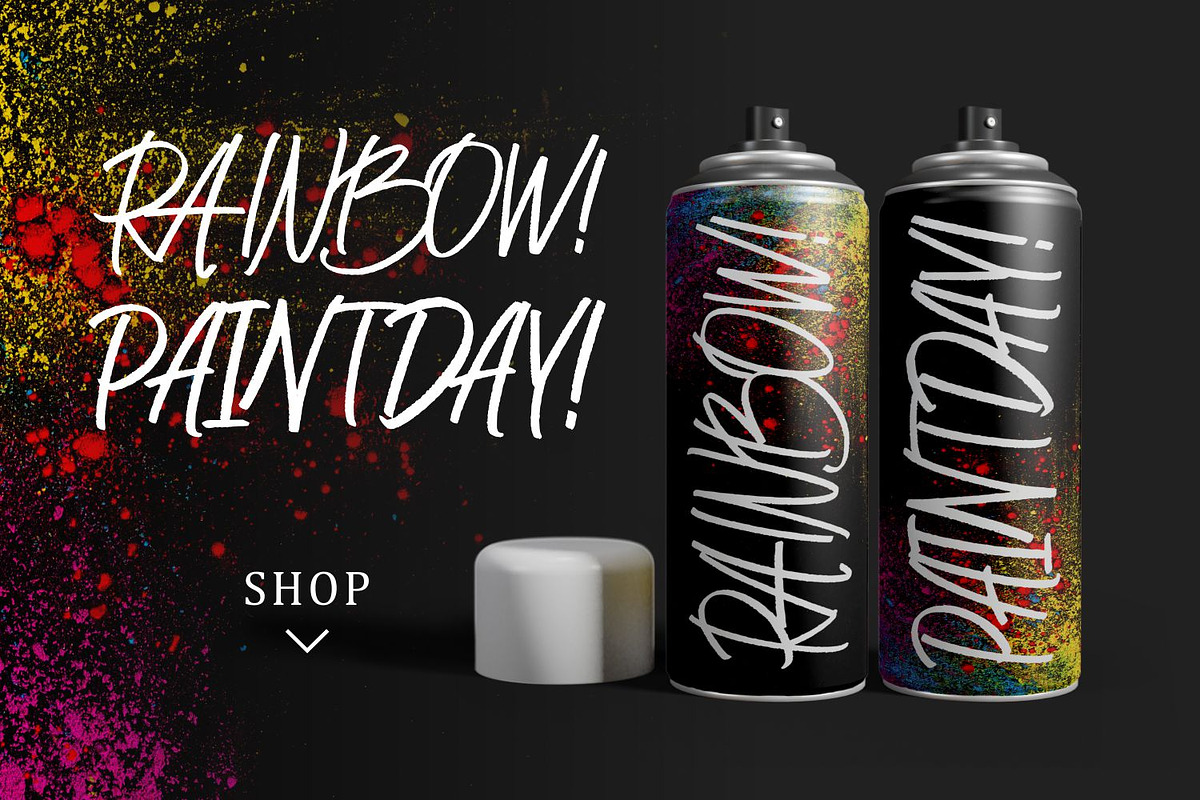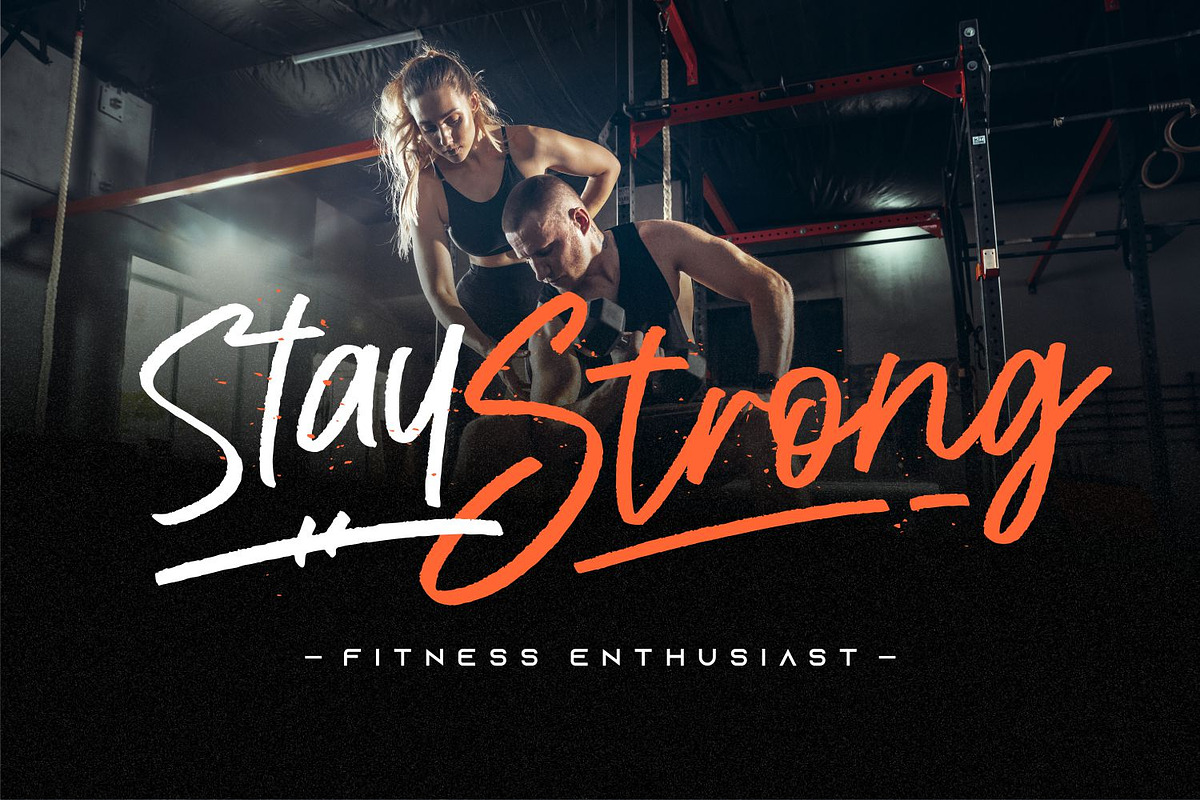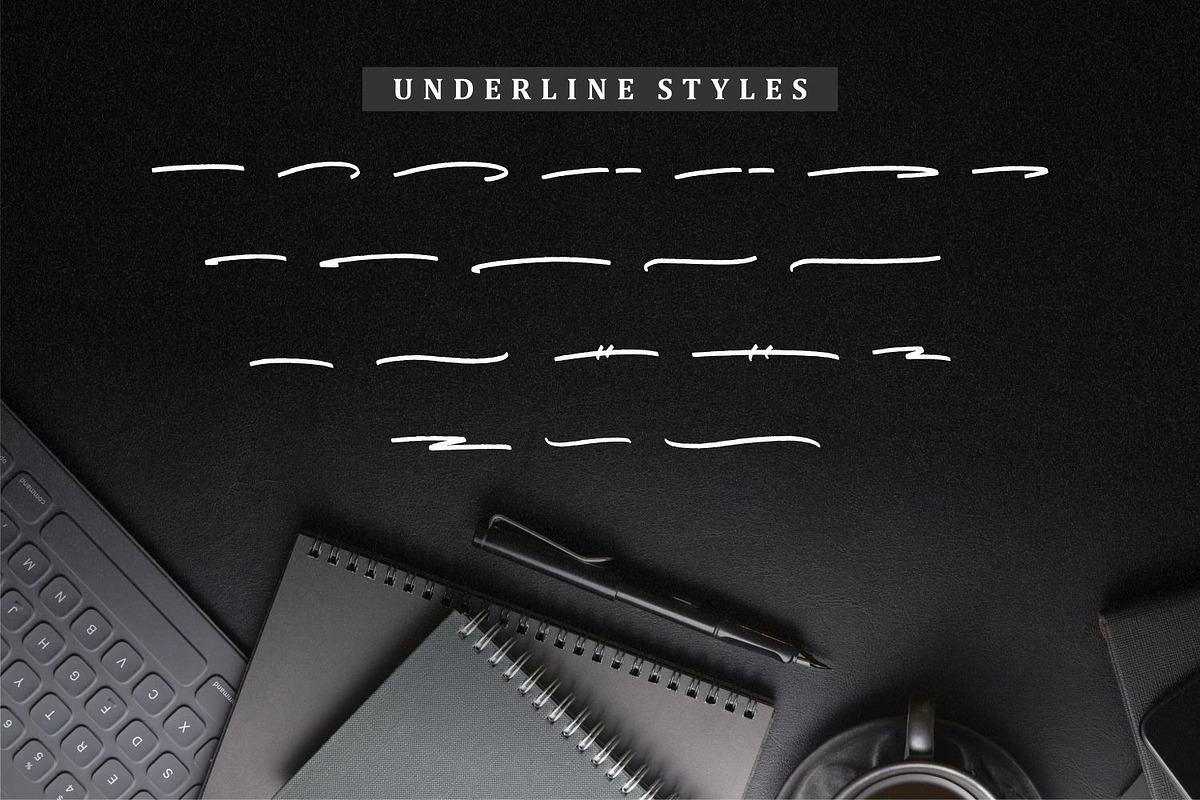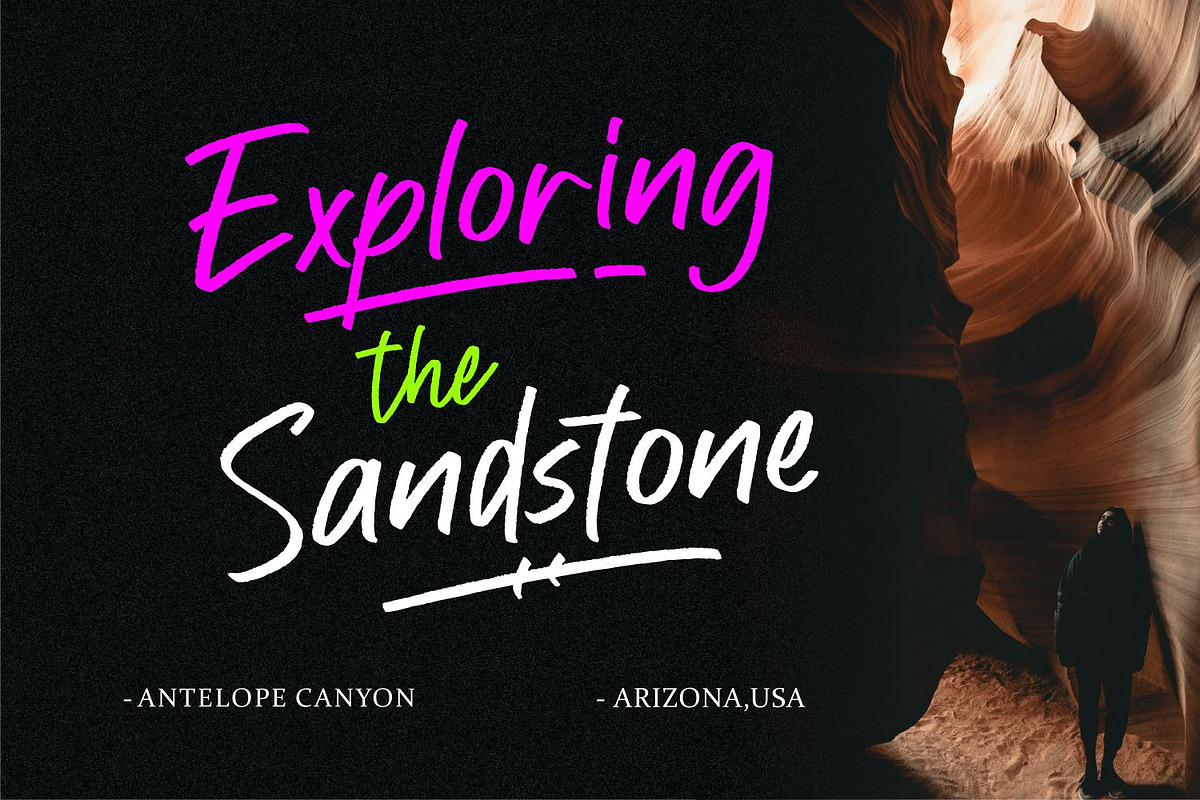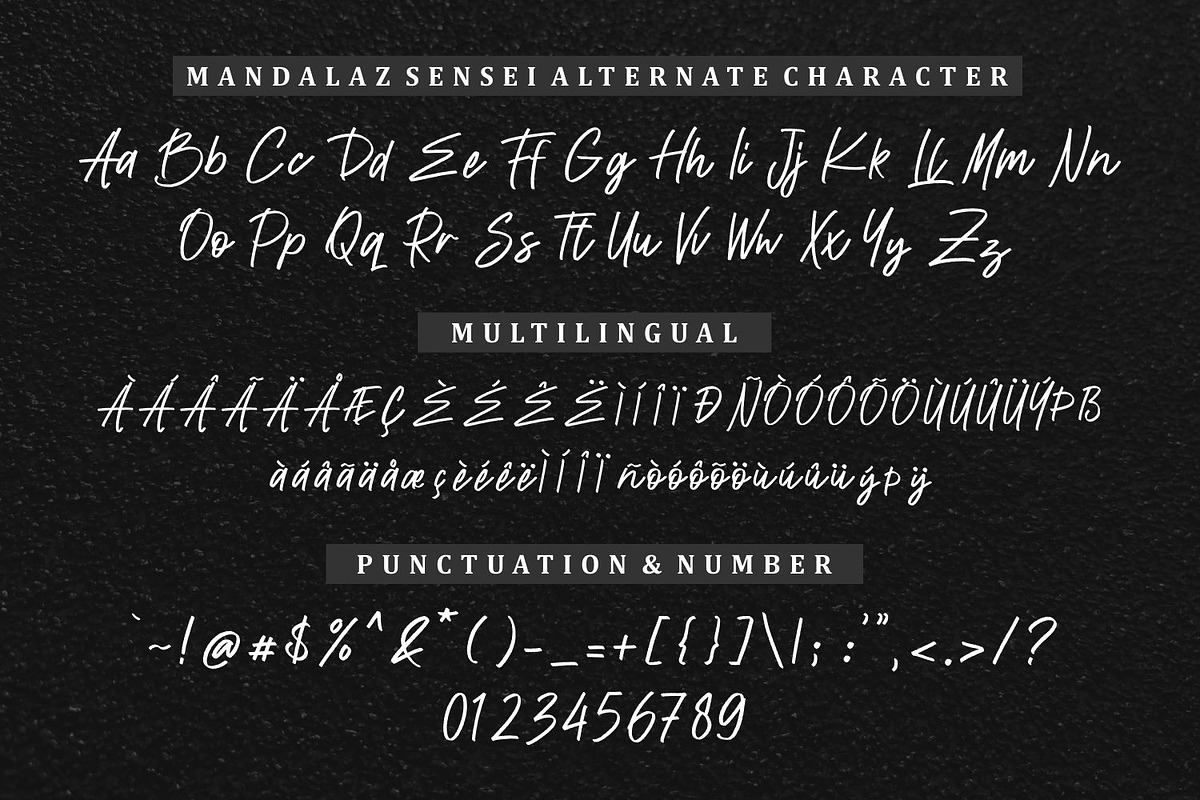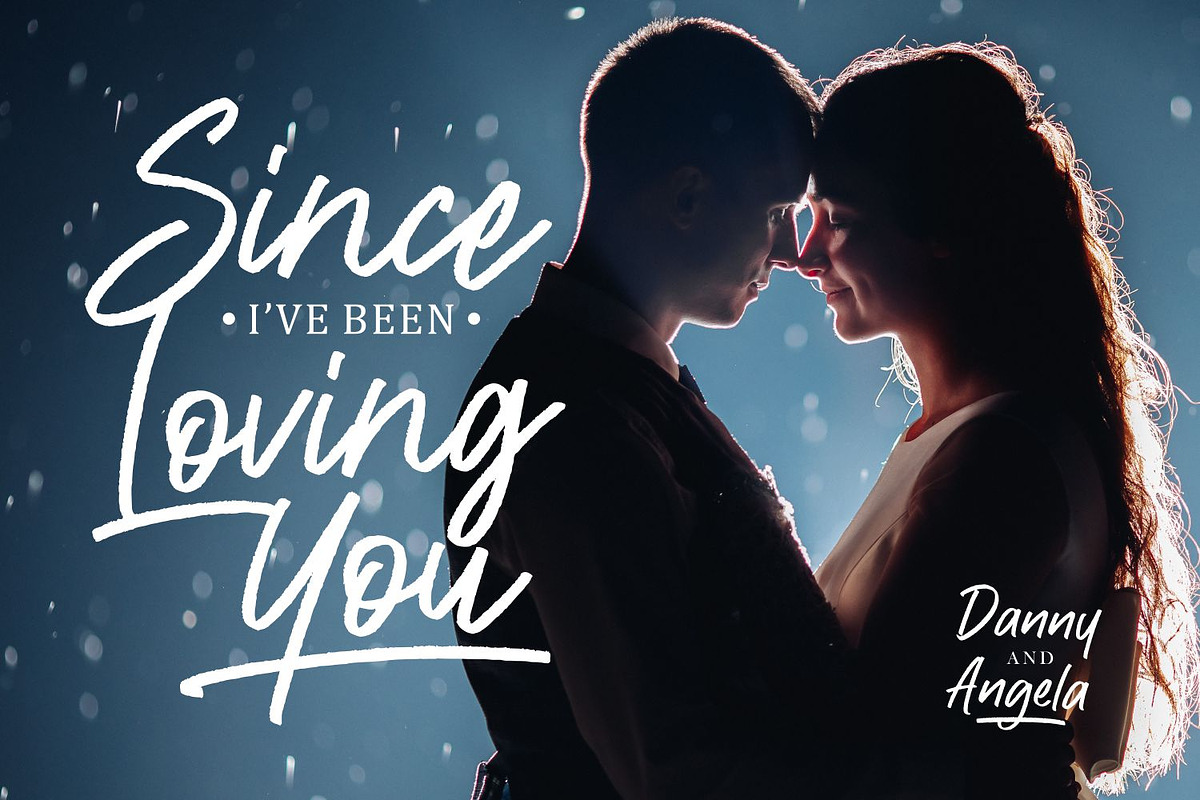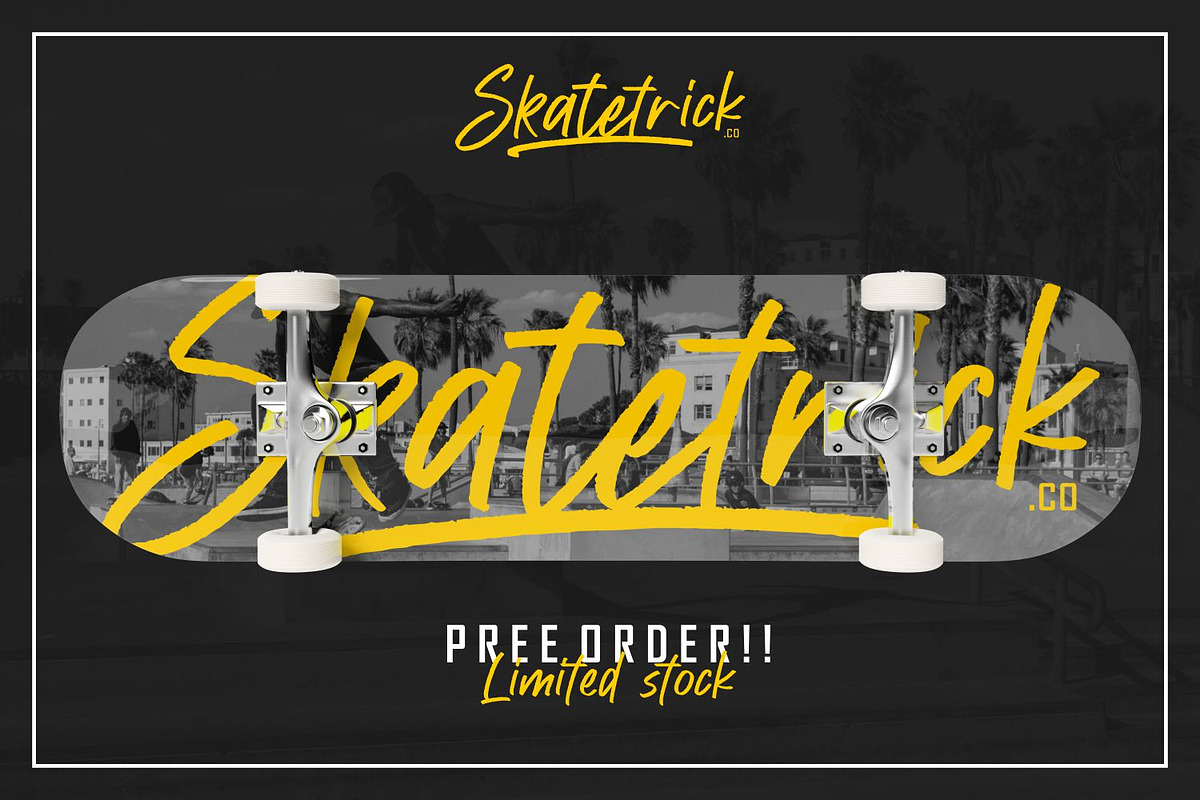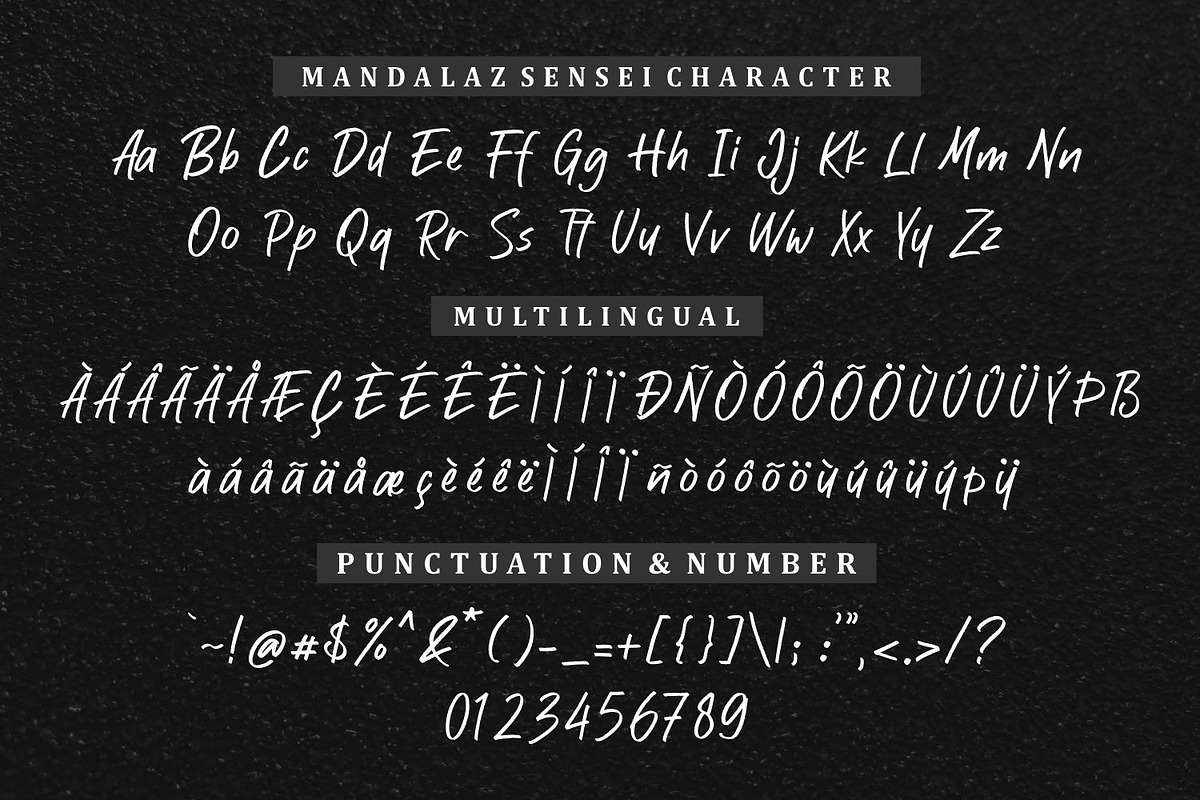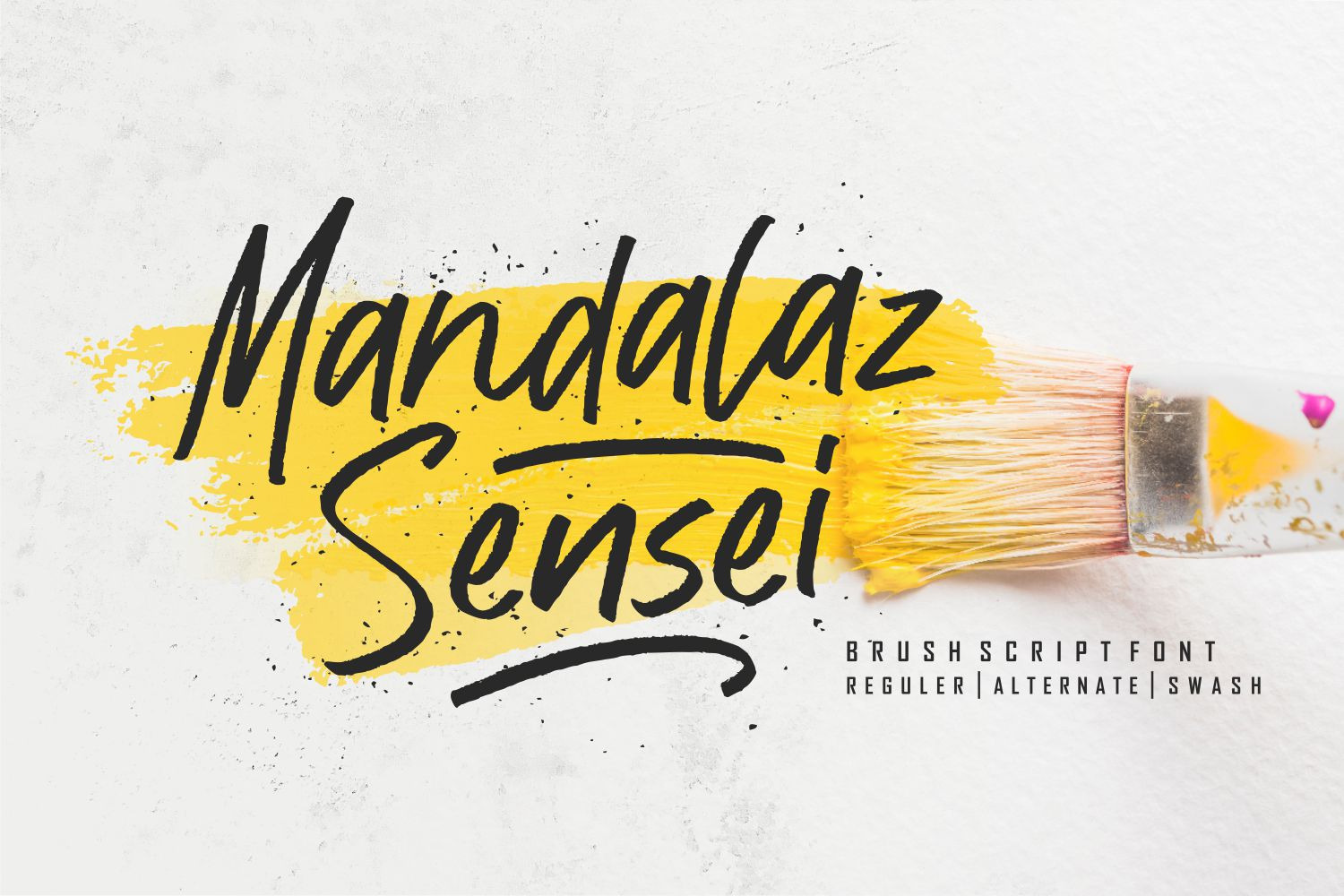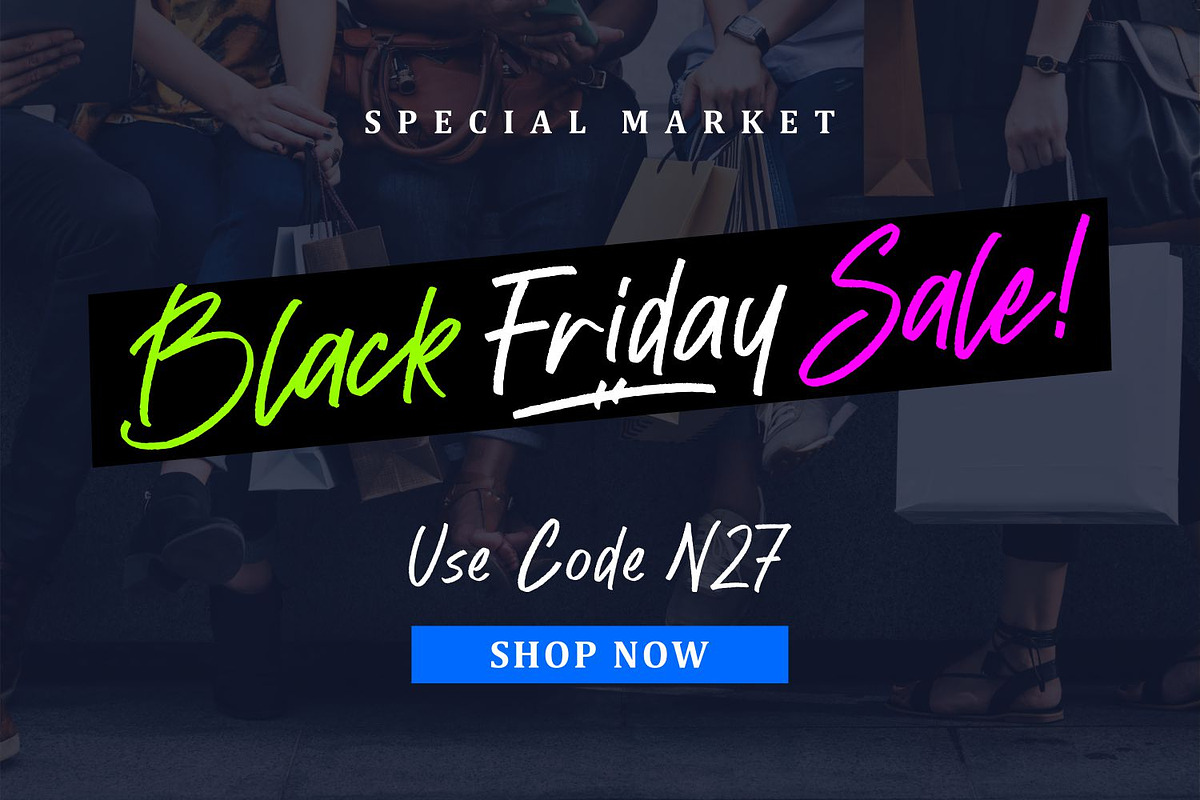
Mandalaz Sensei Font
Proudly Present, Mandalaz Sensei.
Mandalaz Sensei is a Brush Script Font.
Mandalaz Sensei is perfect for product packaging, branding project, megazine, social media, wedding, or just used to express words above the background.